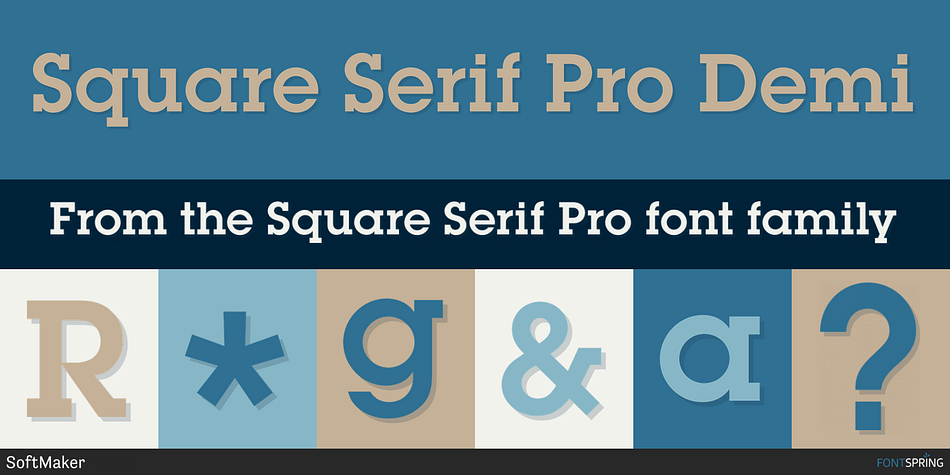
Square Serif Pro Demi
Square Serif Pro is a slab serif font family. This typeface has ten styles and was published by SoftMaker.
Square Serif Pro is n 1974 has a style sometimes called ““slab serif”” or ““Egyptian”“. Square Serif Pro has a strong and open look with its solid serifs, open counters, and tall x-height. It’s a good choice to convey practicality and stable friendliness.